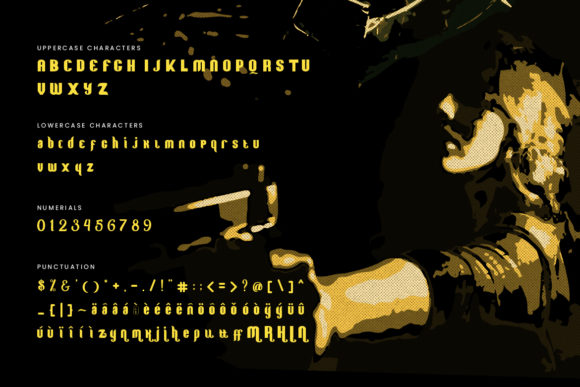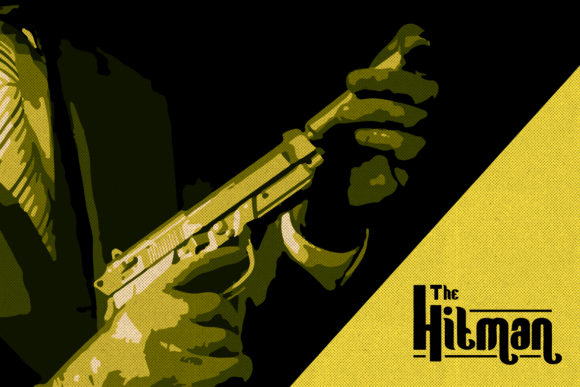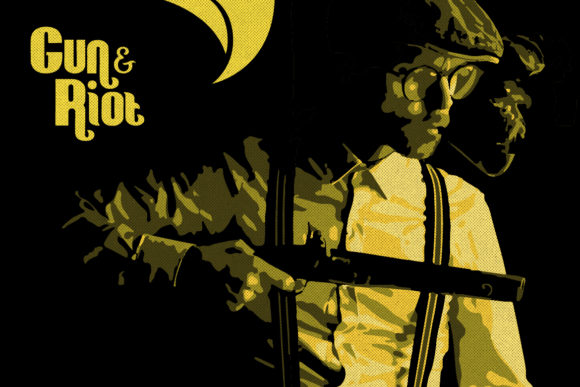
Revoller Font: Elevate Your Creative Projects with a Bold Twist
Have you ever found yourself staring at a blank canvas, struggling to bring your creative idea to life? The spark is there, but the right design resource seems elusive. This is where the Revoller Font comes in – a game-changing addition to your design arsenal. With its unique and bold display style, this font is sure to make your creative project stand out from the crowd.
Whether you’re a seasoned designer or just starting out, the Revoller Font offers a high-quality solution for elevating your designs. Its versatility makes it perfect for a wide range of applications, from digital graphics to print materials. And the best part? This font is available for free download, complete with a transparent background that makes it easy to integrate into your projects.
Key Features of Revoller Font
• Unique, hand-drawn style with a transparent background, ideal for use on various backgrounds.
• Comes in a single size, with a medium line height and a x-height of 0.65, suitable for body text and headings.
• Perfect for designers looking for a unique and creative font to elevate their design projects.
Honest Review: Revoller Font
As a designer, I’m always on the lookout for high-quality design resources to enhance my creative projects. Recently, I came across the Revoller Font, and I was eager to put it to the test.
• Unique and modern design aesthetic
• Transparent background, allowing for seamless integration with other design elements
• High quality, making it suitable for print and digital applications
While the Revoller Font has many strengths, there are a few limitations to consider:
• Limited character set, which may not be suitable for complex texts
• No bold or italic versions, which may limit its versatility
Overall, I’m impressed with the Revoller Font’s unique design and high quality. While it may not be suitable for every project, it’s an excellent addition to any designer’s toolkit. With its free download and transparent background, it’s a great resource for designers looking to add some flair to their creative projects.
Revoller Font
The Revoller Font is a free download that serves as a valuable design resource for creative projects. This high-quality font features a transparent background, making it easy to incorporate into various design elements.
Tips for Getting the Most Out of Revoller Font
Experiment with different font sizes, colors, and styles to create visually appealing designs. Also, consider pairing the Revoller Font with other design elements, such as images or graphics, to enhance your creative project.
The Revoller Font is ideal for various design applications, including social media graphics, blog posts, and marketing materials. Its high-quality design and transparent background make it a versatile resource for creative projects.
Alternatives to Revoller Font
Compared to Revoller Font, Font Awesome is more versatile and offers a wider range of icons, but it may not be as suitable for text-based designs.
Noto Font
Noto Font is a high-quality font that offers a transparent background, making it perfect for designers who want to add a touch of elegance to their work. It’s a great alternative to Revoller Font for designers who want a clean and simple design. Noto Font is ideal for creative projects that require a clear and readable font.